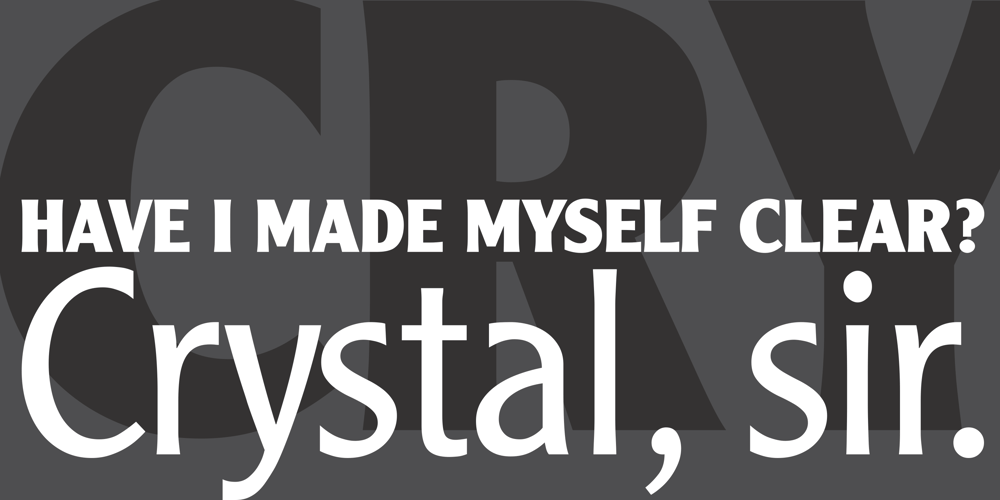
Clearface Gothic
Clearface Gothic font
Clearface Gothic Font Family was designed by Morris Fuller Benton, Linotype Design Studio and published by Linotype. Clearface Gothic contains 5 styles and family package options. Clearface Gothic first appeared in 1910, designed by Morris Fuller Benton, the world-famously prolific typeface artist. In addition to Clearface Gothic, Benton also designed classics like Franklin Gothic, Century Expanded, and many other types. Clearface Gothic is a sans serif face with light forms displaying the Zeitgeist of the turn of the 20th century. Distinguishing characteristics are the open forms of the a” and “c,” the arched “k,” and the upward-tilting horizontal stroke of the “e.” The relatively narrow typeface, with its open inner white spaces, is extremely legible even in small point sizes. There is no accompanying italic.This digital version of Clearface Gothic was made in 1984 by the Linotype Design Studio.”